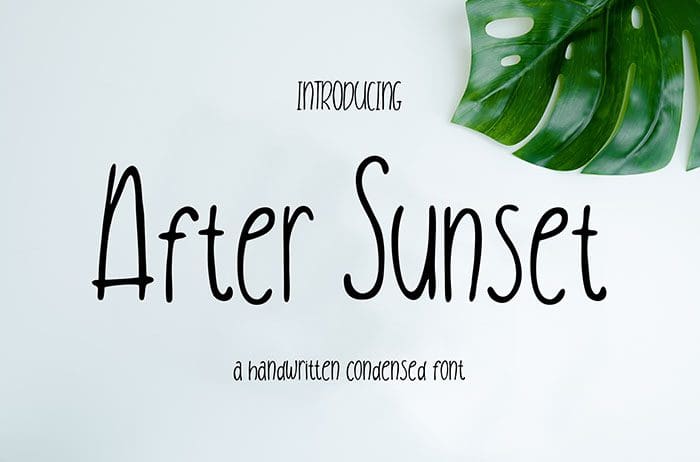
After Sunset Display Font
After Sunset Display Font. Perfect for branding projects, logo, wedding designs, social media posts, advertisements, and much more. Thanks to Creatype Studio for sharing this font! Take a look at this portfolio for more of his stunning fonts.